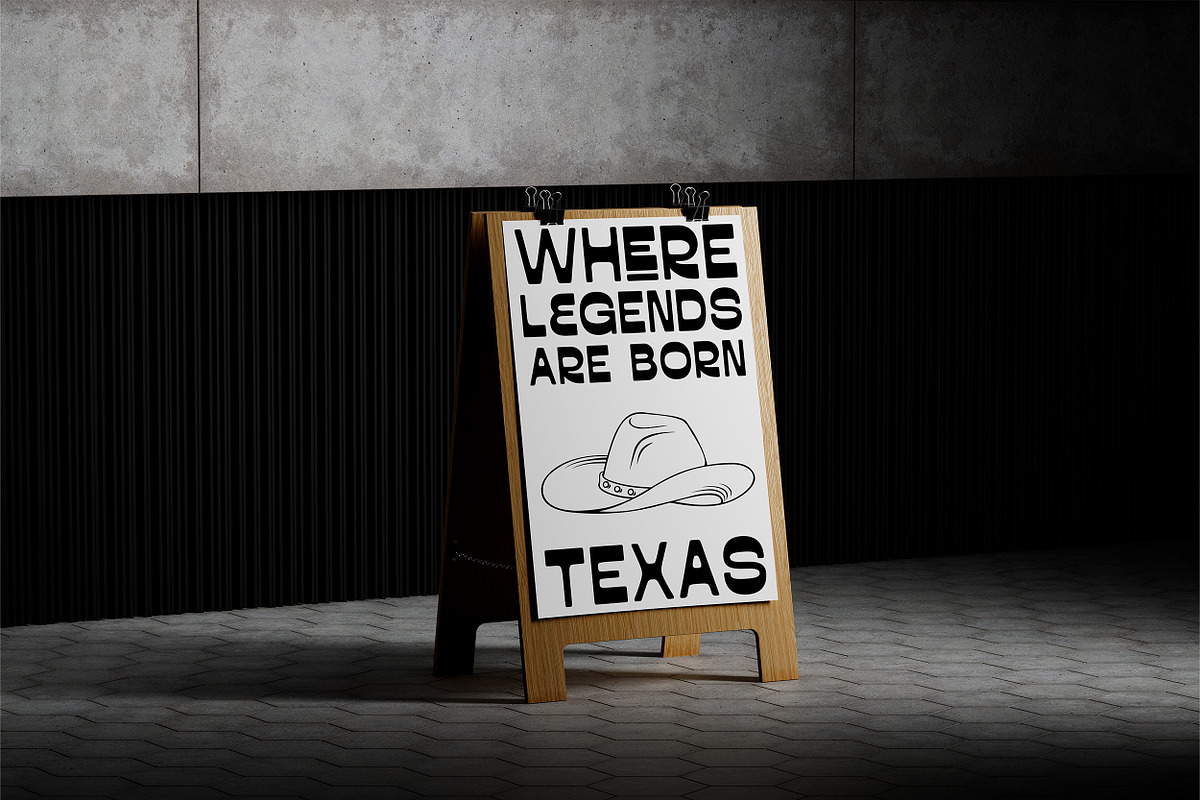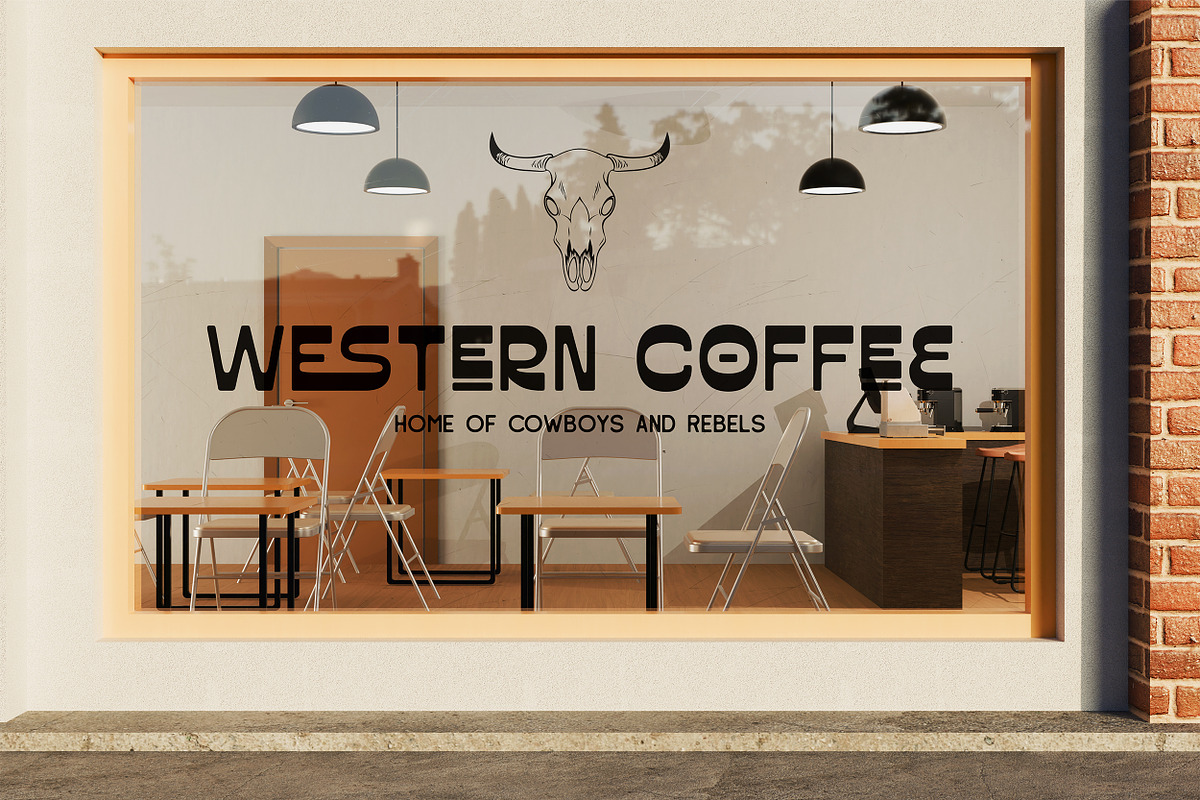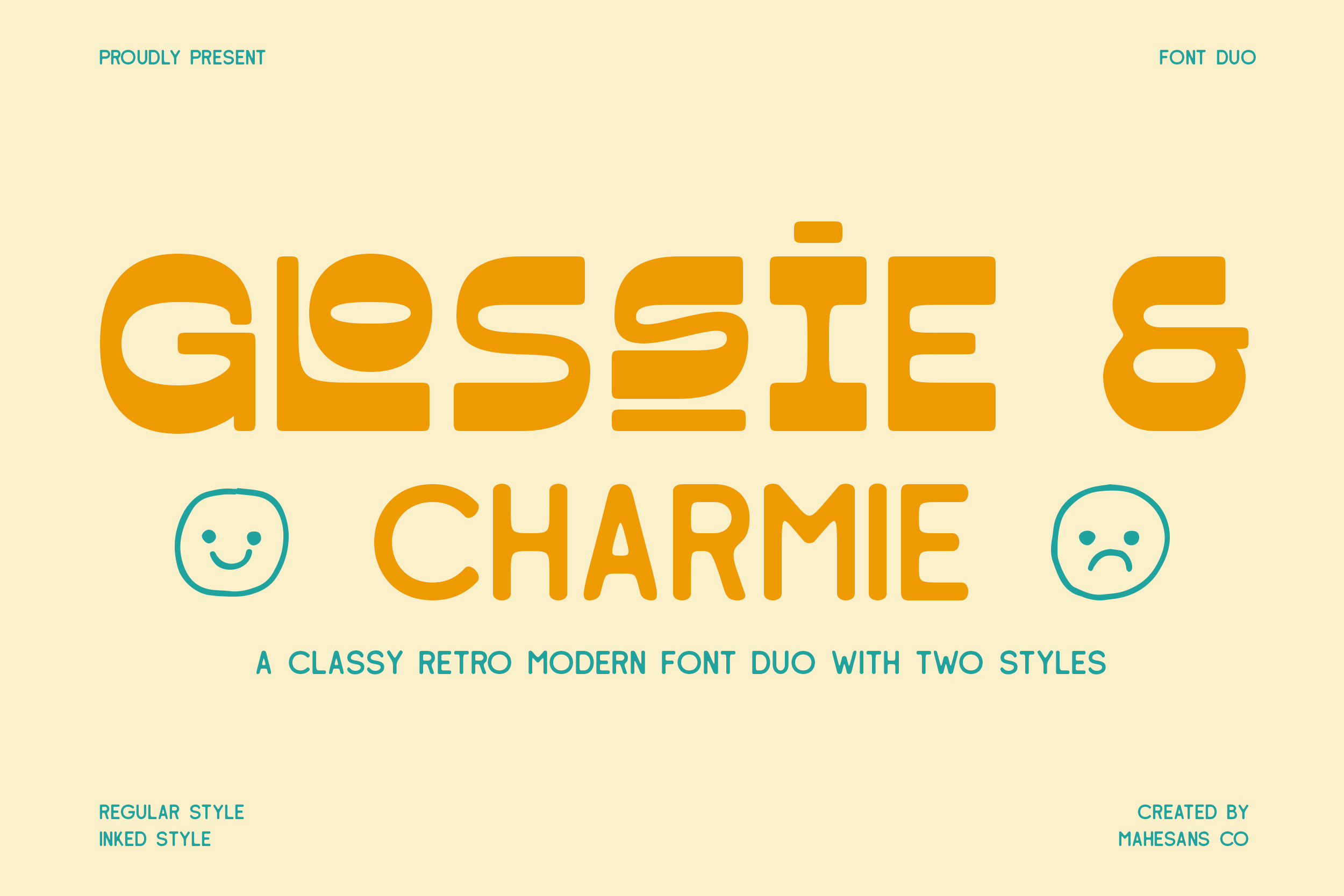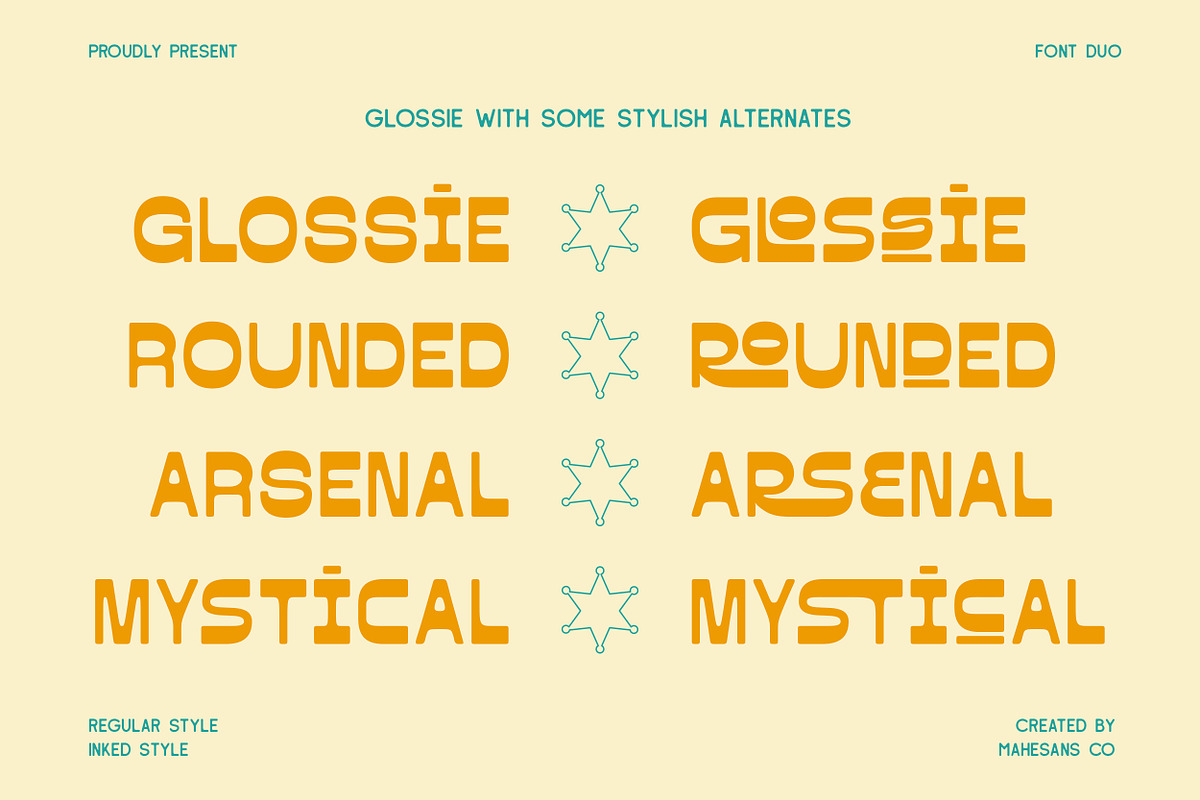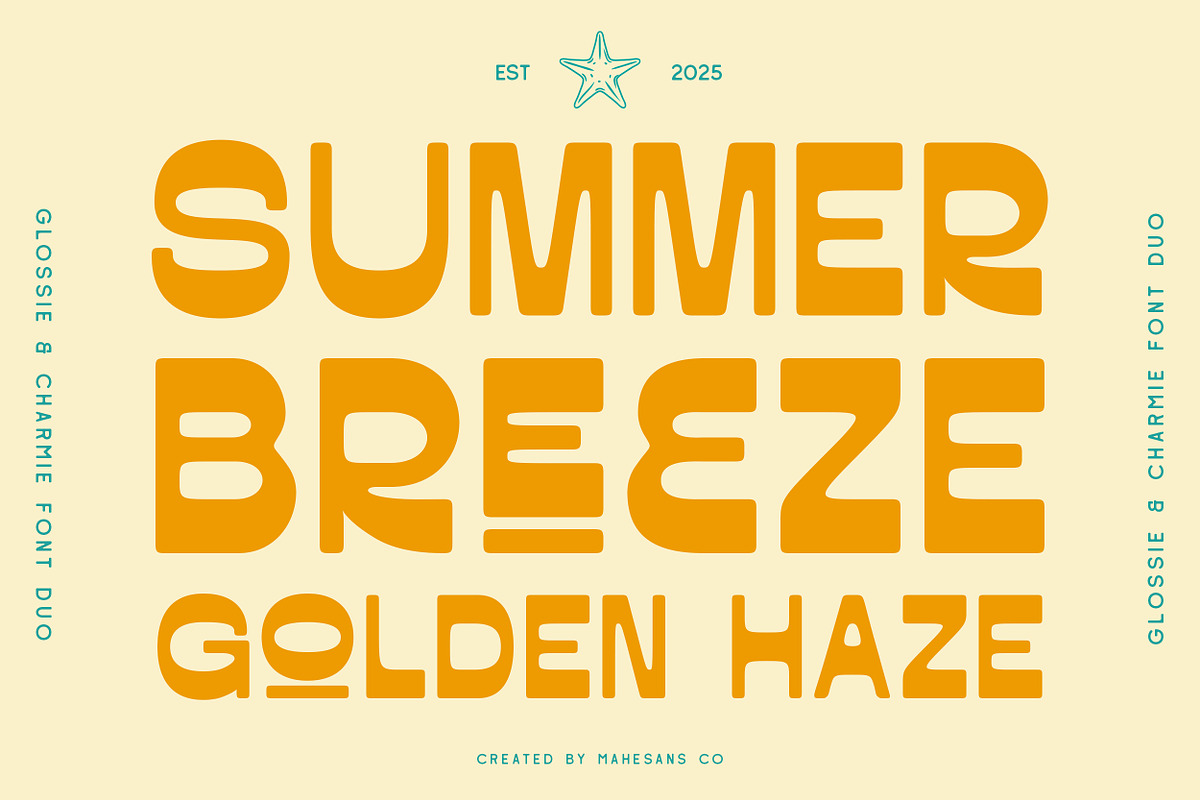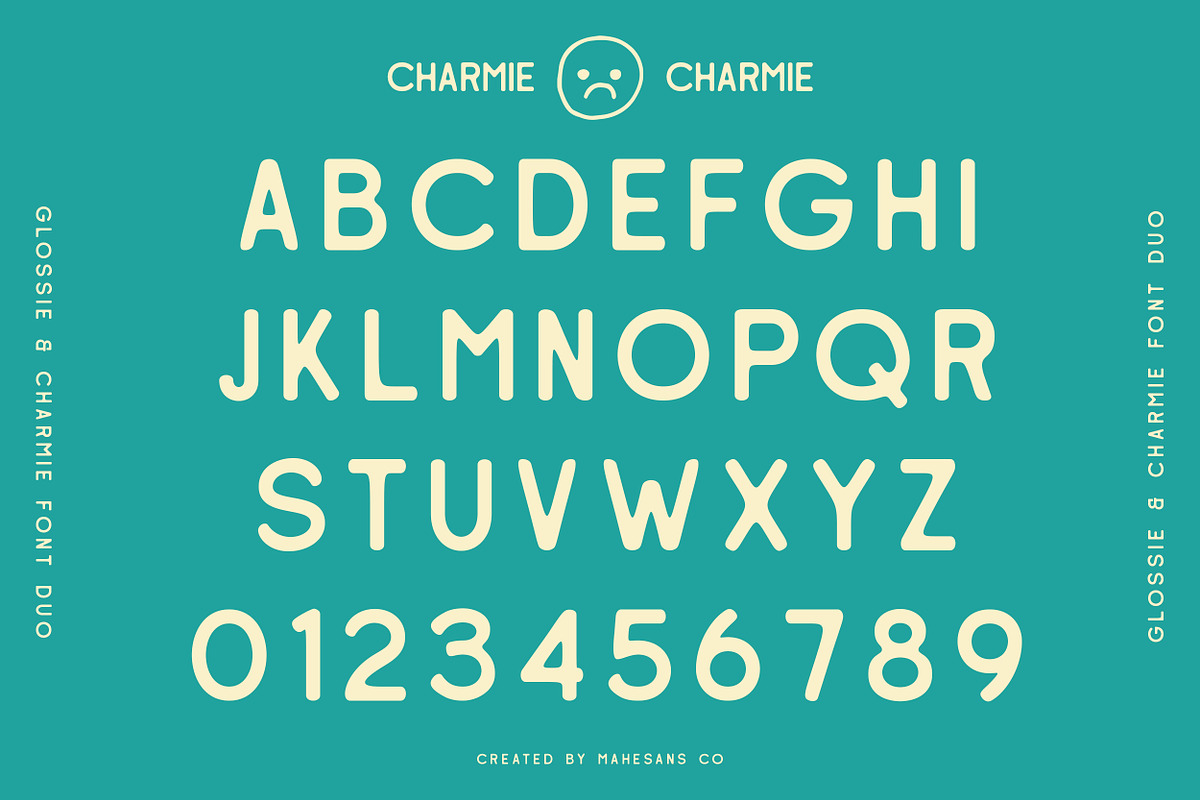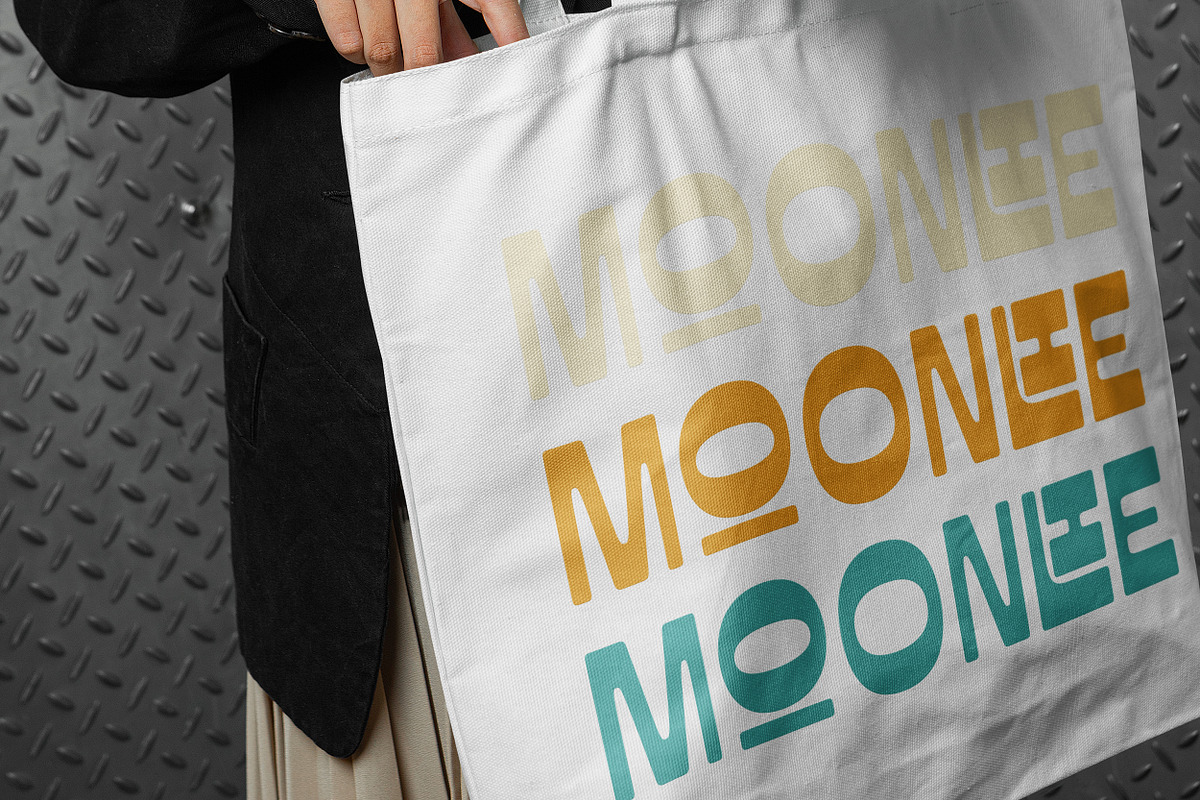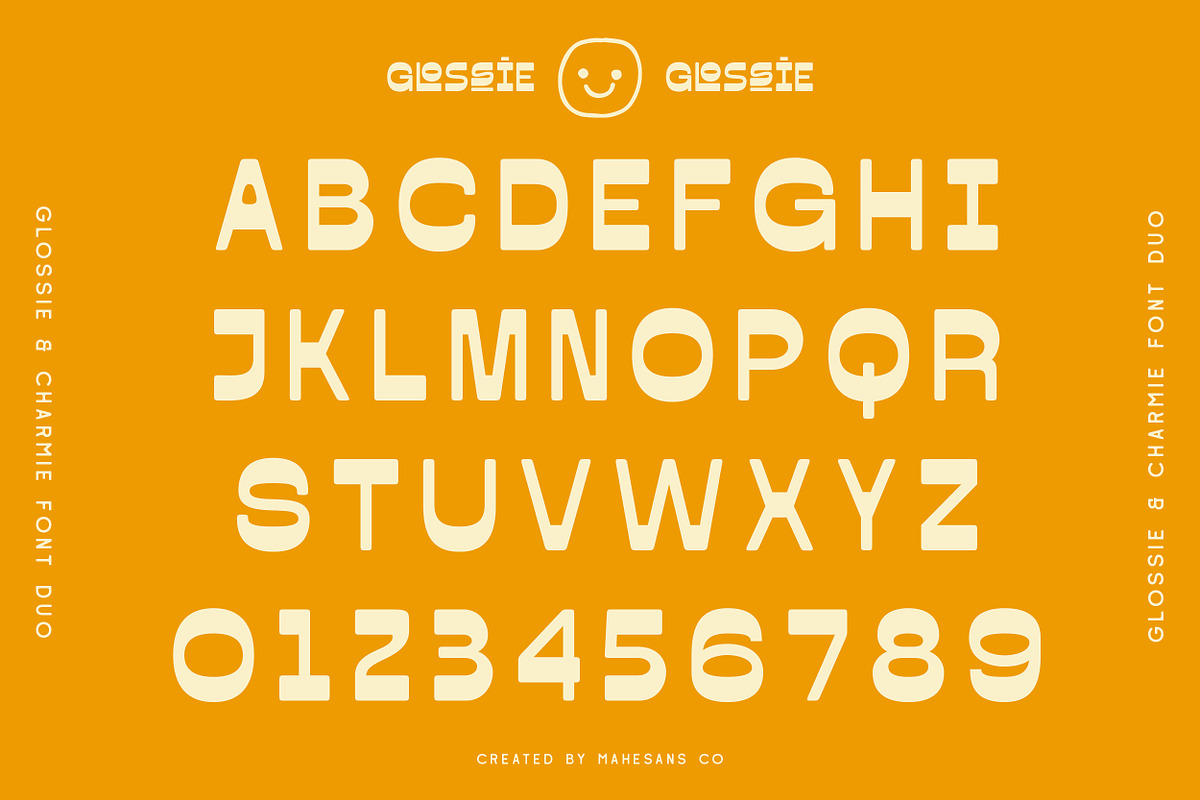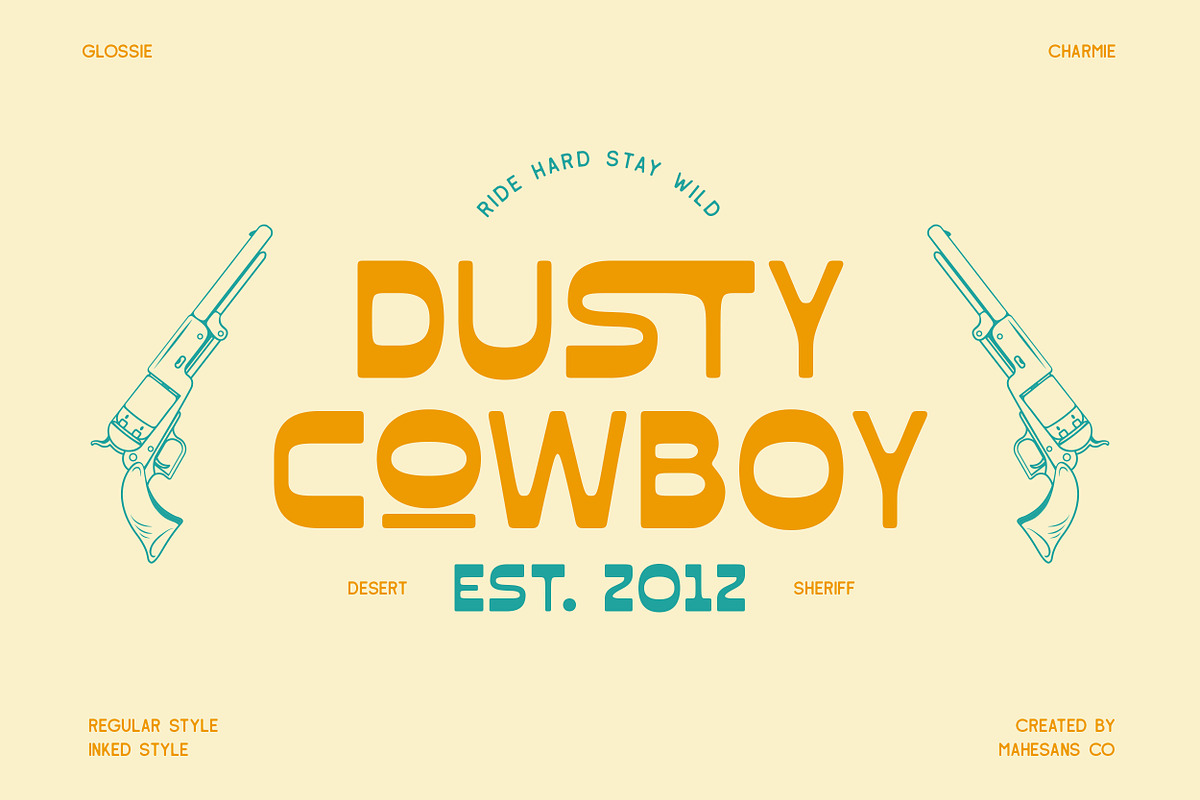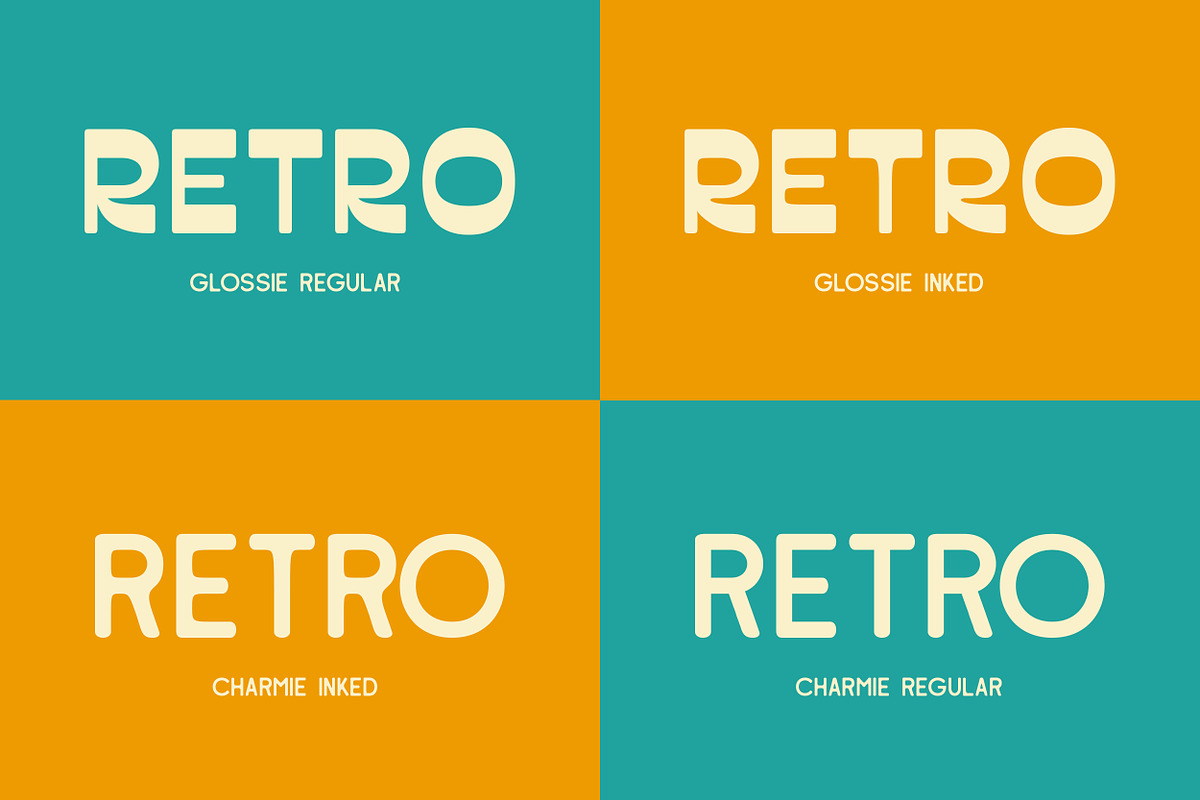
Glossie & Charmie | Font Duo
Glossie & Charmie, a playful yet elegant font duo inspired by the bold vibes of the retro era and the simplicity of modern design. This pair brings you the best of both worlds — perfect for branding, packaging, posters, social media, and beyond.
- Glossie (Regular & Inked Style)
- Charmie (Regular & Inked Style)
- Allcaps & Variant Style
- Numerals & punctuation
- Bonus stylish alternates & fun ligatures